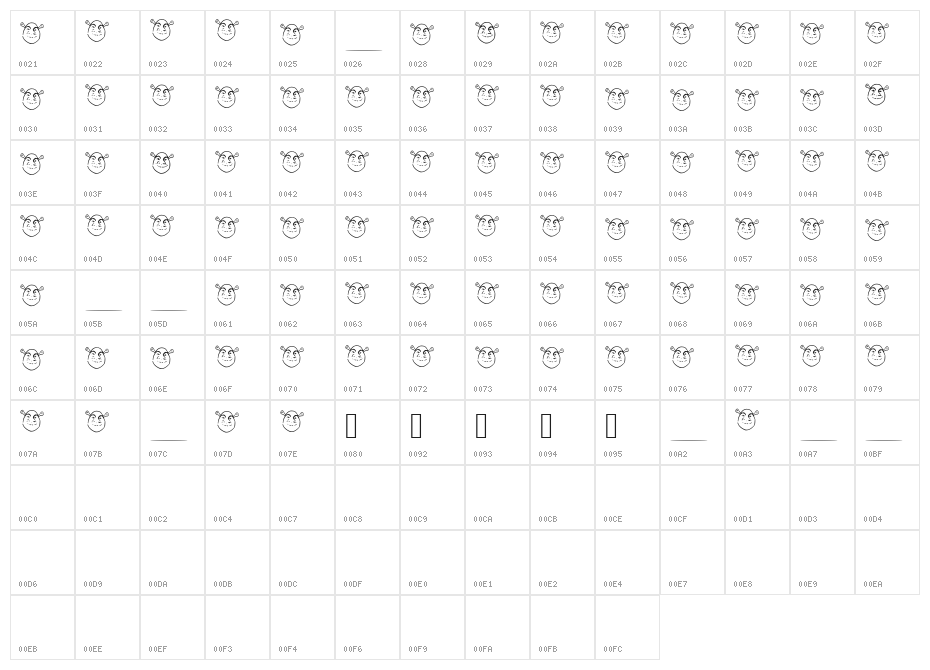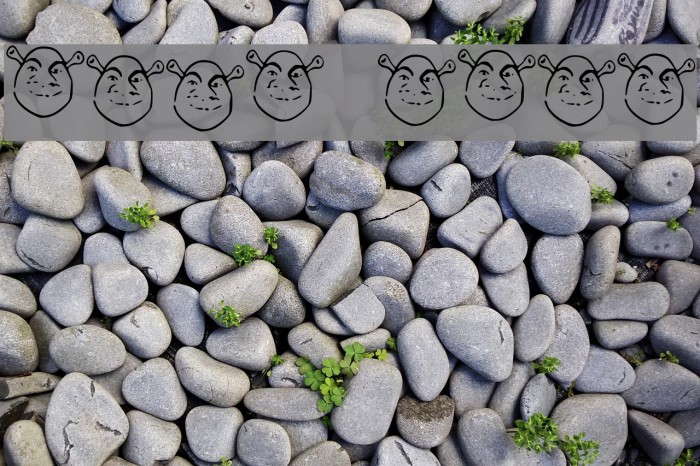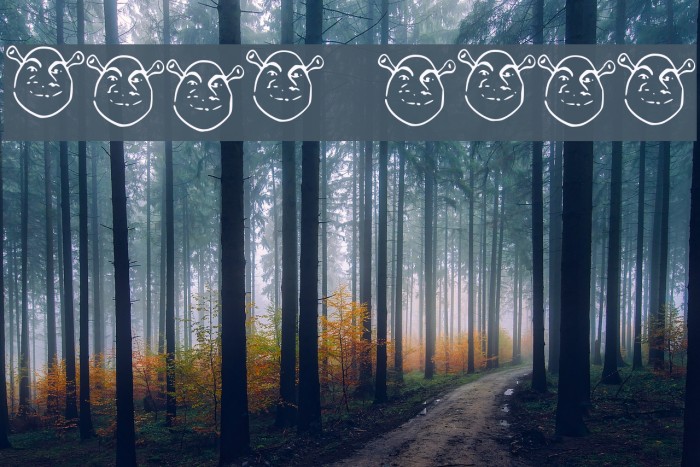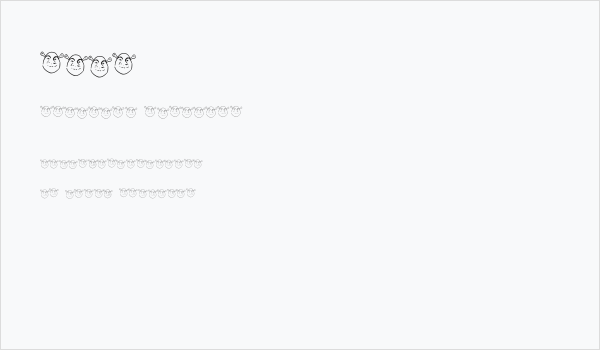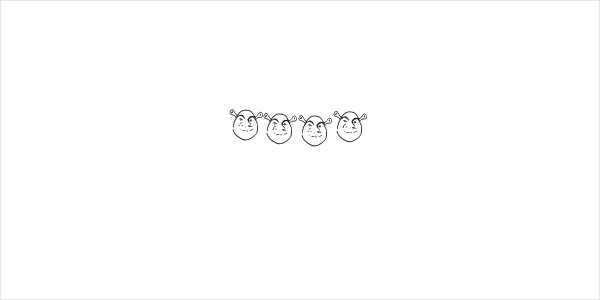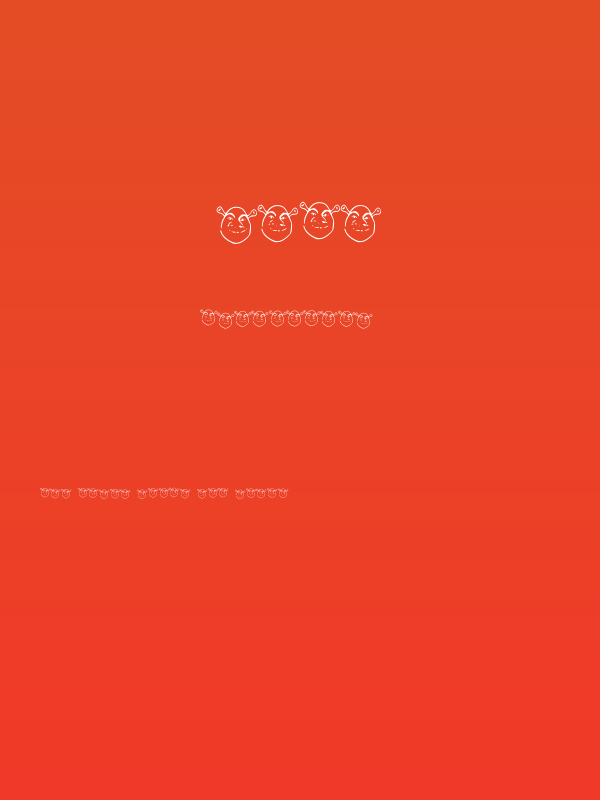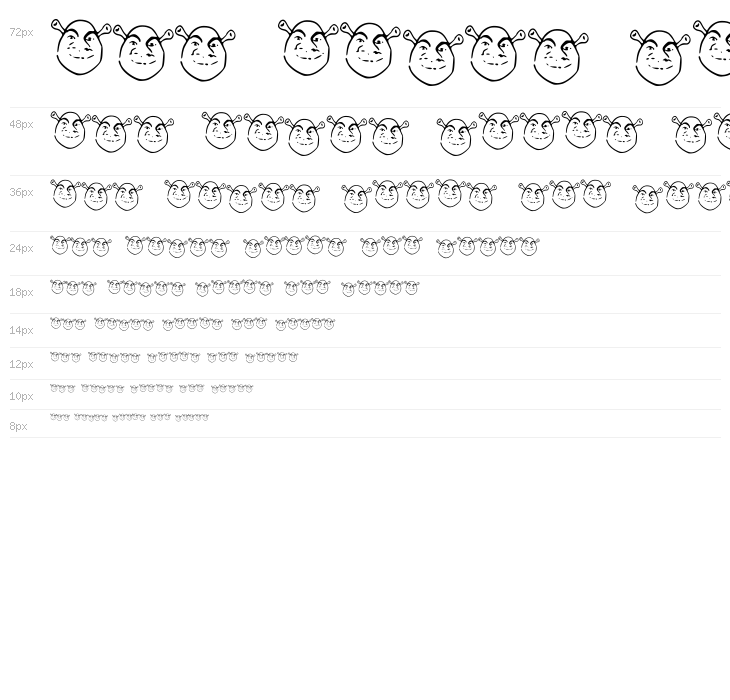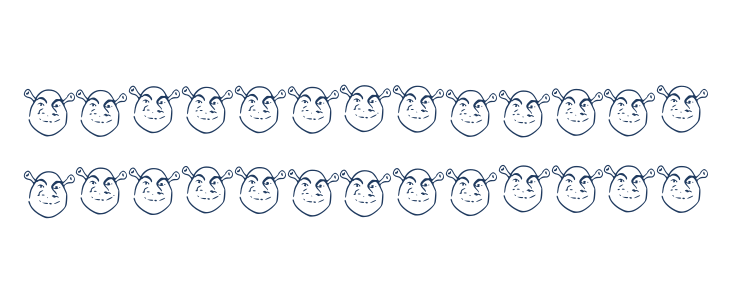
welp Font
welp Description
A decorative font consisting of repeated cartoonish faces resembling a well-known animated ogre character, arranged in rows. The faces vary slightly in size and expression but maintain a consistent outline style with simple black lines on a white background.
| Overall Style | Playful, whimsical |
| Use Case | Themed headlines, decorative borders, novelty prints |
| Proposed Projects | Novelty designs, themed party invitations, children's event materials, humorous posters. |